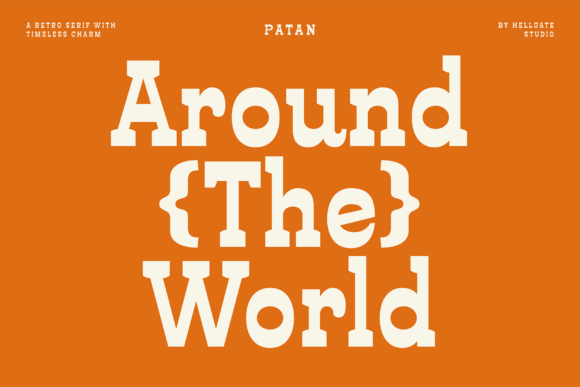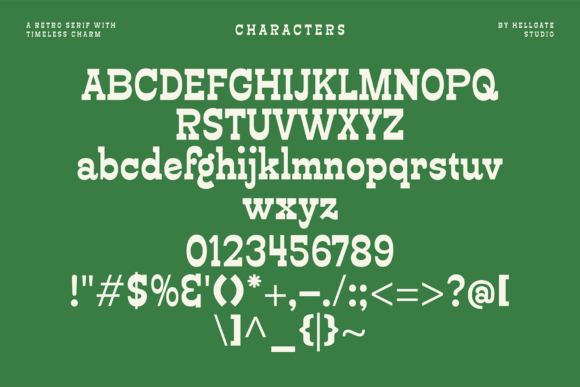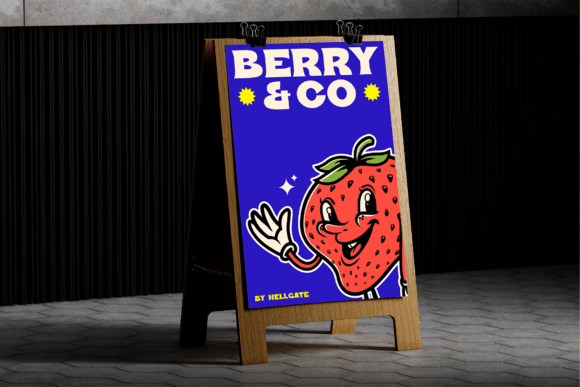
Introduction to Patan Font
Patan Retro Serif Font was thoughtfully engineered for the retro-inspired designer.
Imbued with a charming serif demeanor, this versatile font makes customization a breeze Tailoring the text and color to suit your unique needs is smooth and effortless, making it a standout choice for those who yearn to express their creativity with a distinctive edge.